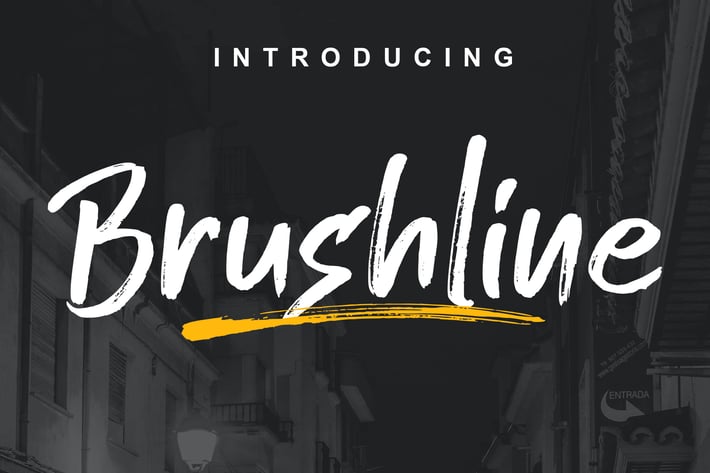
Brushline Font
Brushline is natural handmade font, from paper to digital and then we digitized it carefully.
This type of font is perfect for you who design something for advertisement, clothing, music album or logo.
Support Multilingual Characters (Basic Western : AÀÁÂÃÄÅCÇDÐEÈÉÊËIÌÍÎÏNÑOØÒÓÔÕÖUÙÜÚÛWYÝŸỲŸÆßÞþ )
PUA encoded
Opentype Feature like Standard Ligature